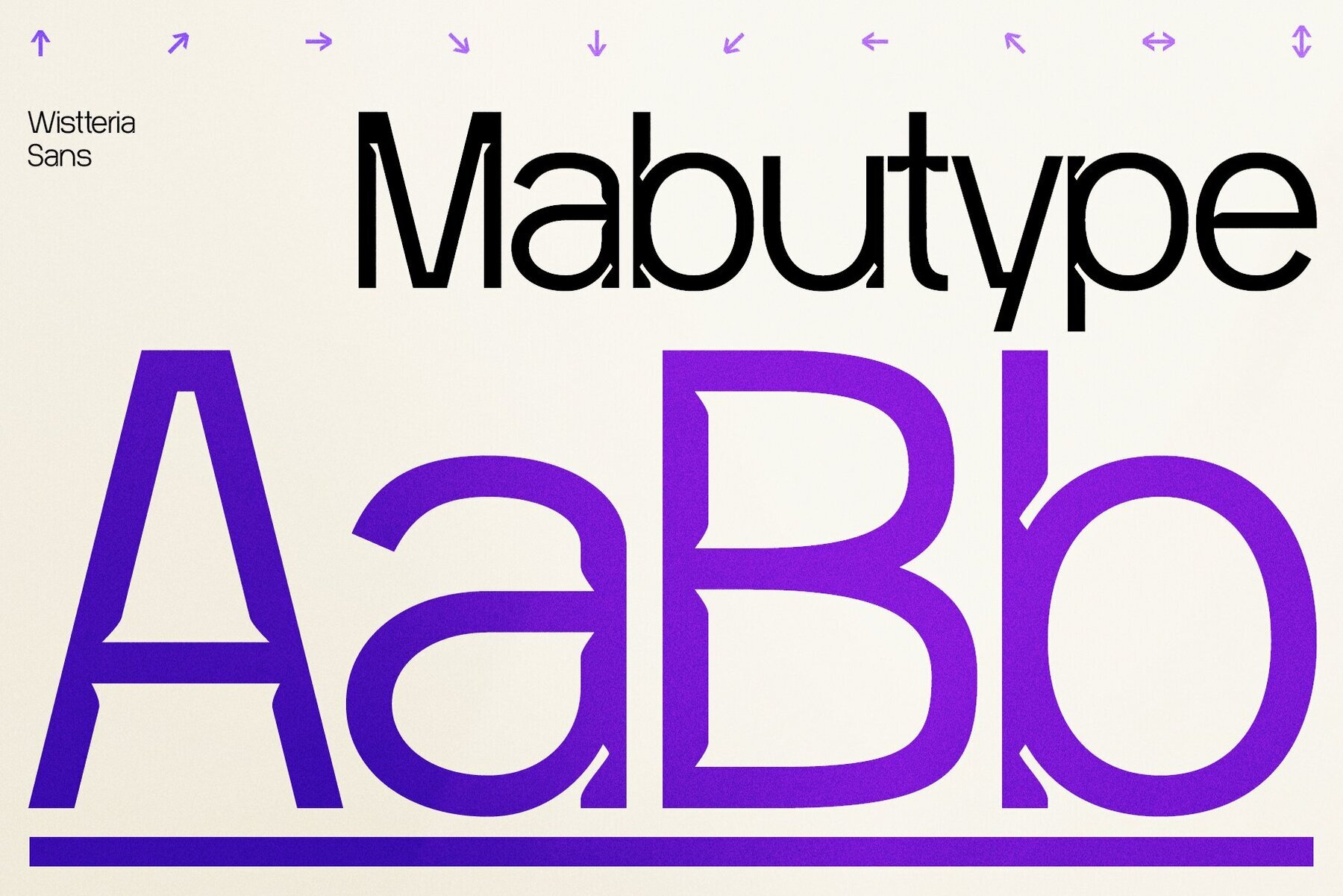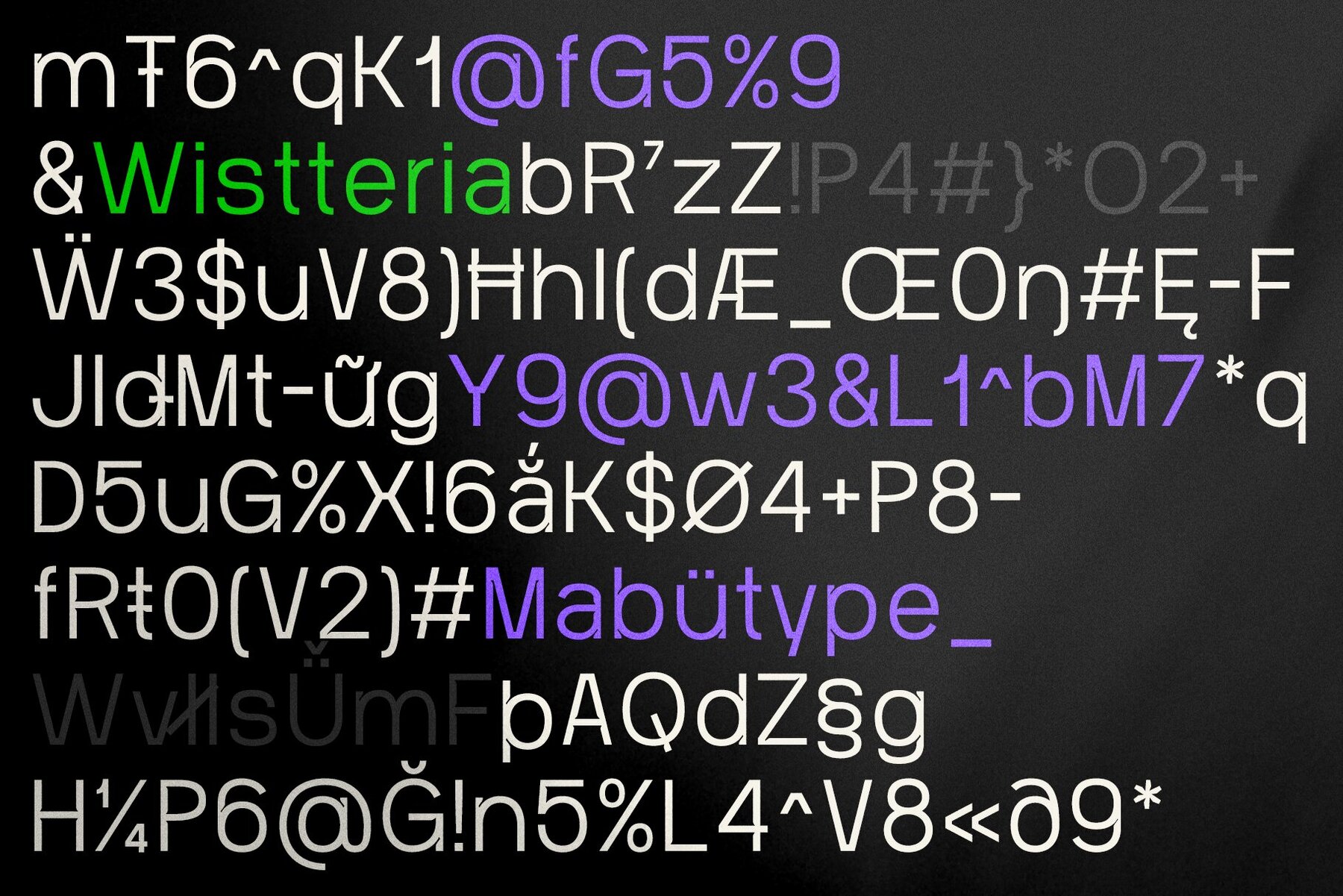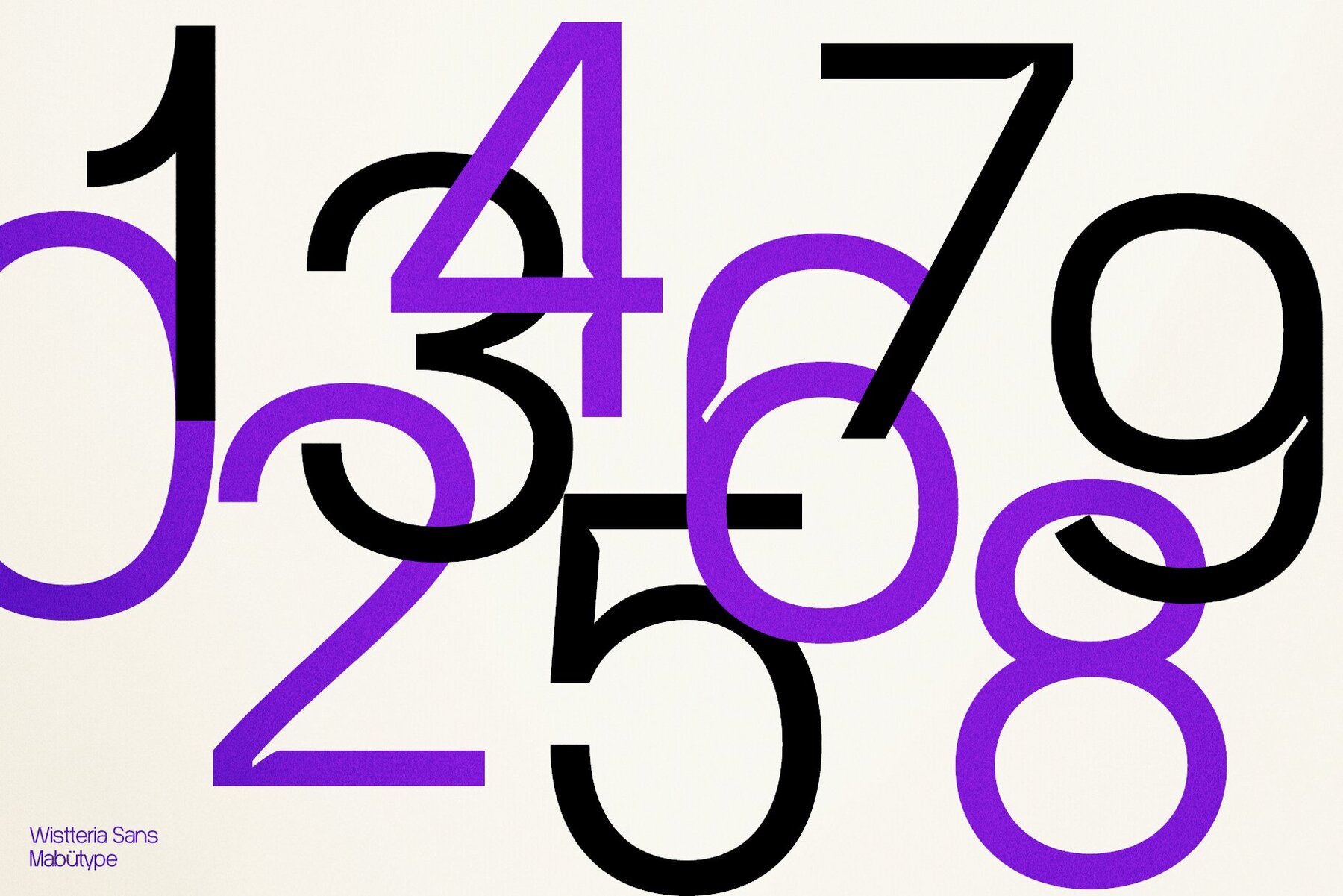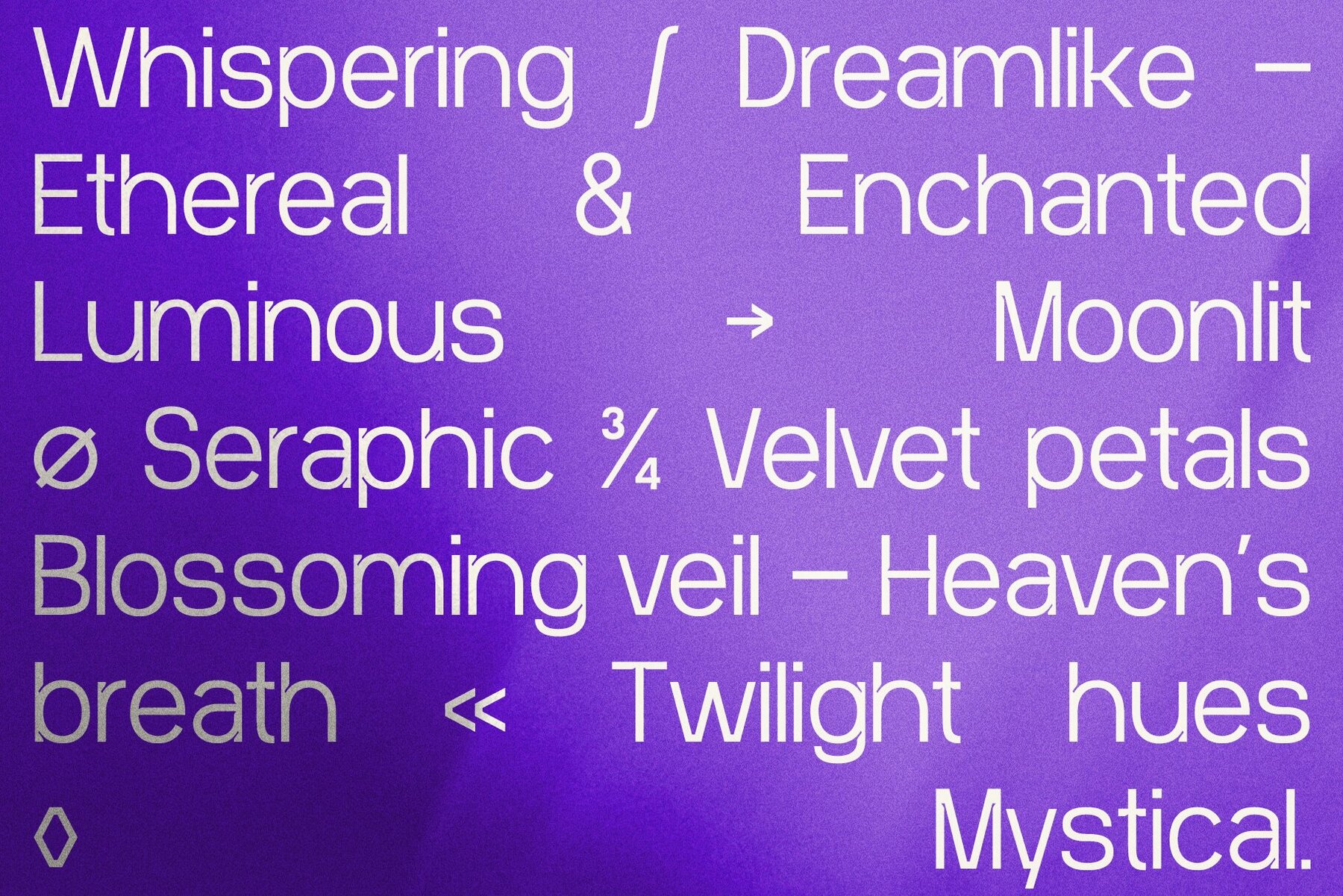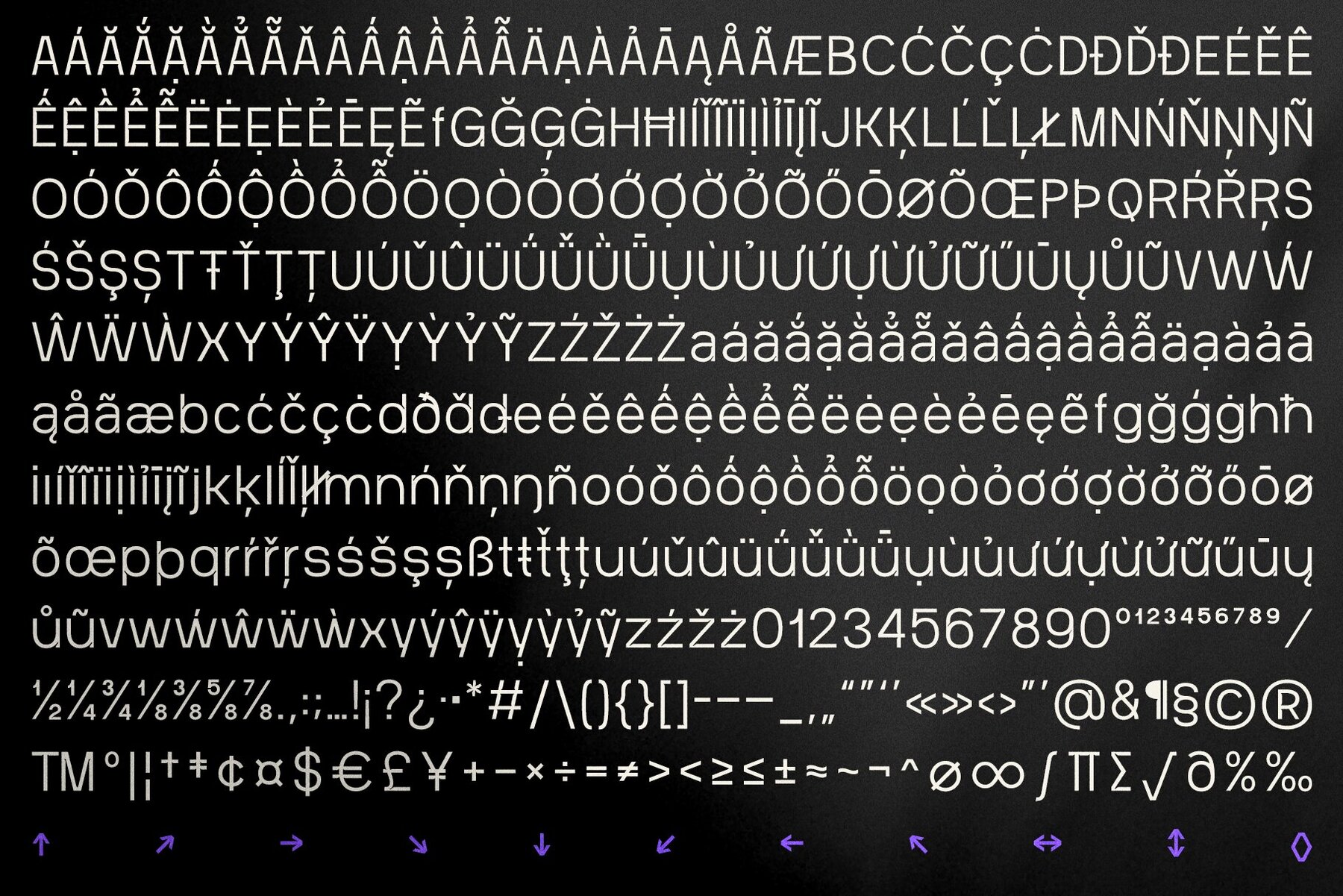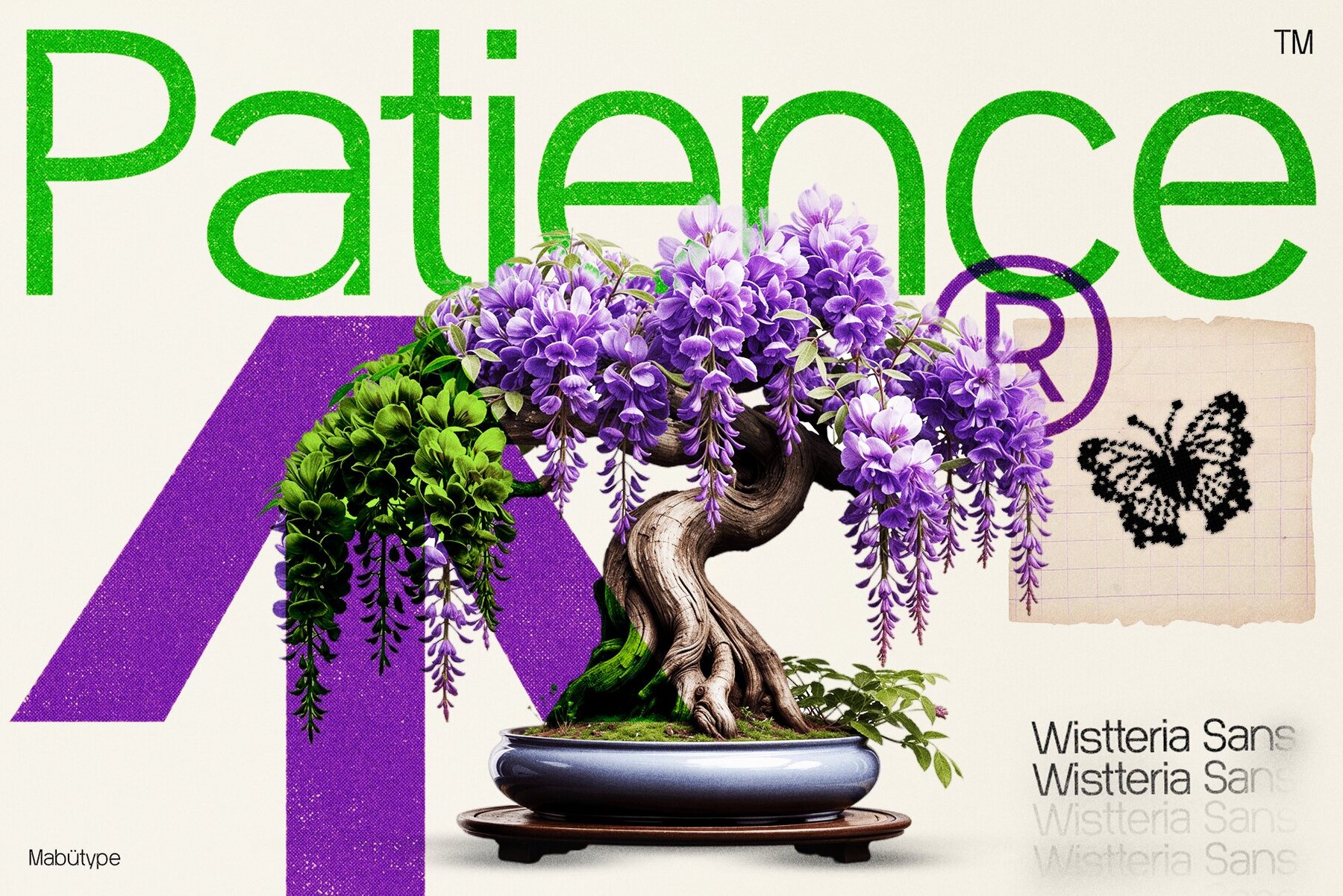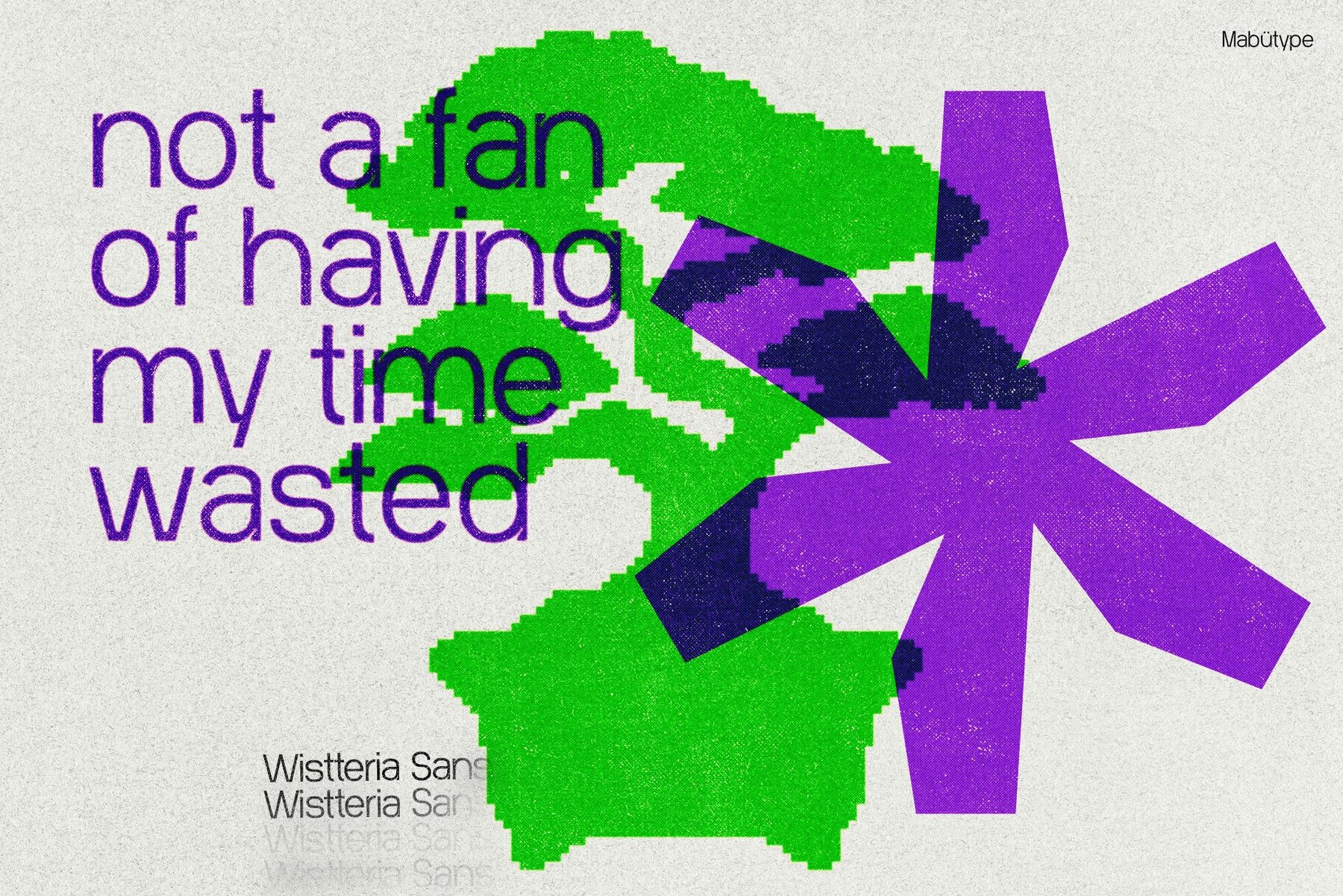
Wistteria Sans Font
Wistteria Sans is a delightfully versatile font that's perfect for both text and display purposes. It features unique exaggerated inktraps and sharp geometric elements, which lend it a modern, minimalist vibe. Whether you're designing posters, crafting headlines, or writing body text, this font ensures top-notch readability. Plus, with support for multiple languages and over 500 glyphs, it's your go-to for any creative project. And the best part? Wistteria Sans is completely free for both personal and commercial use. So, whether you're designing for fun or crafting professional work, you can use this font without any worries